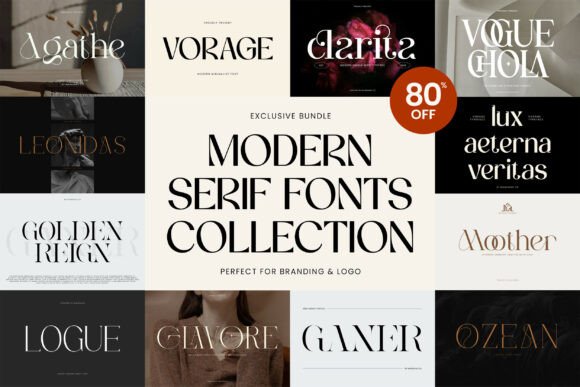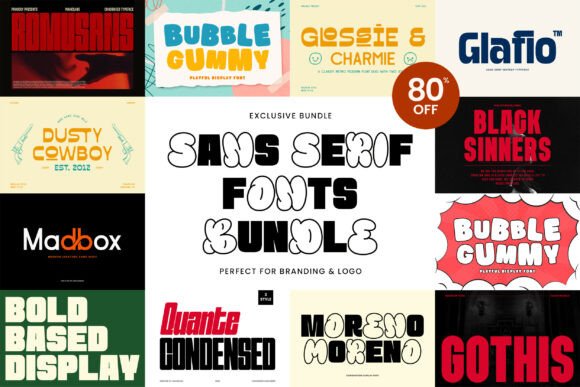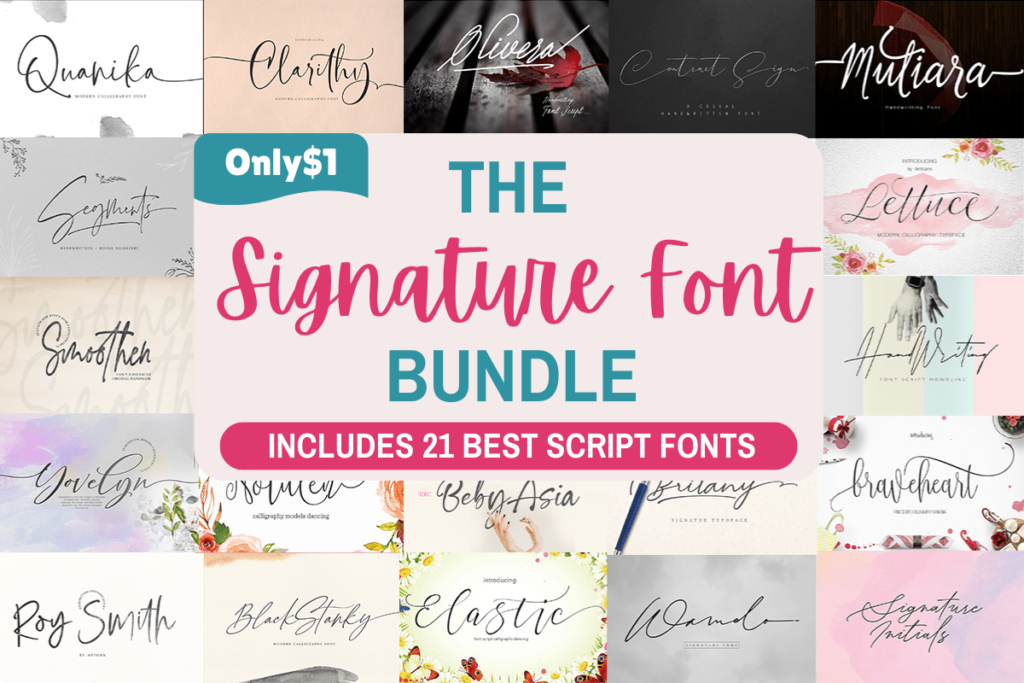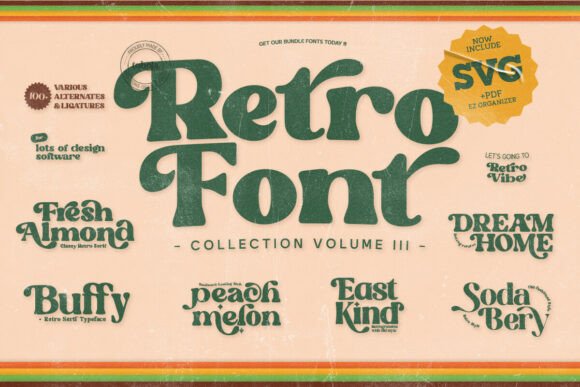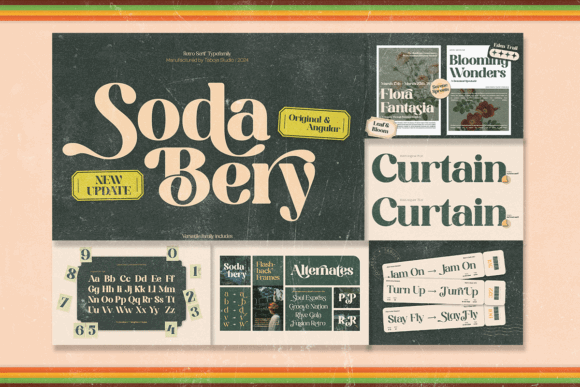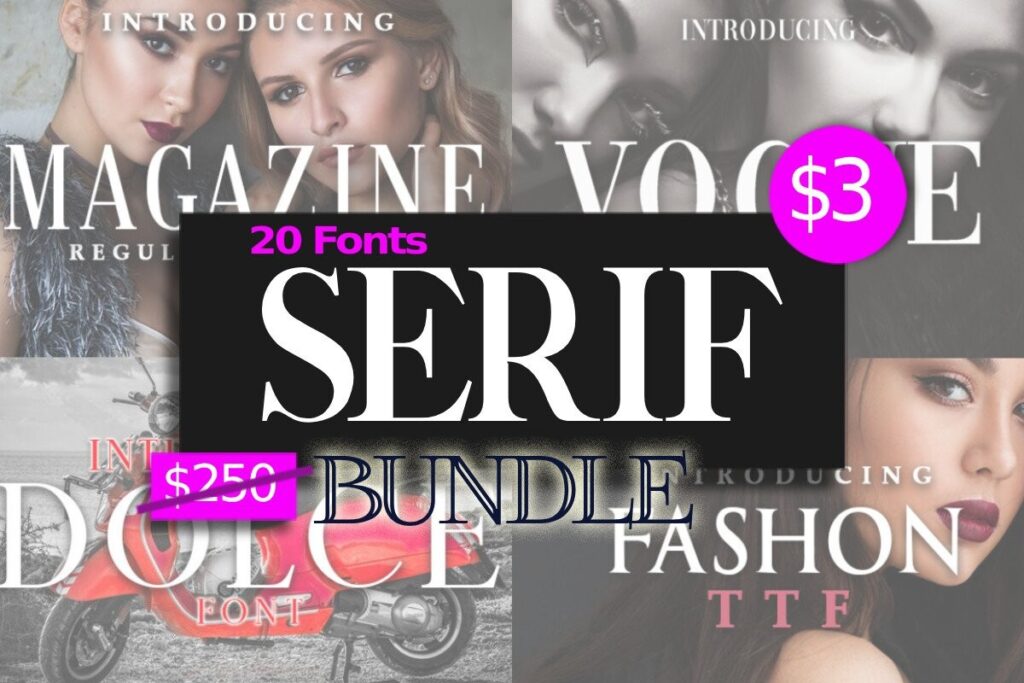
Best Display Font Bundles for Logos: What Makes Them Useful?
The best font bundles for logos give you more than a folder full of decorative lettering. They give you several ways to express the same brand idea—from bold and contemporary to elegant, nostalgic, playful, or handmade.
My main concern when judging a bundle is not how many fonts it contains. A collection with 100 unrelated typefaces may be less useful than a focused 20-font bundle with complementary styles. For logo projects, I look for memorable letterforms, readable word shapes, useful contrast, and enough variety to build supporting brand graphics around the main mark.
- Best overall: Modern Display Font Bundle
- Best for fashion and beauty: Modern Serif Bundle
- Best for heritage branding: Vintage Font Collection Bundle
- Best for clean modern logos: Sans Serif Bundle Collection
- Best for personal brands: Signature Font Bundle
1. Modern Display Font Bundle
My pick for: The most versatile all-around collection
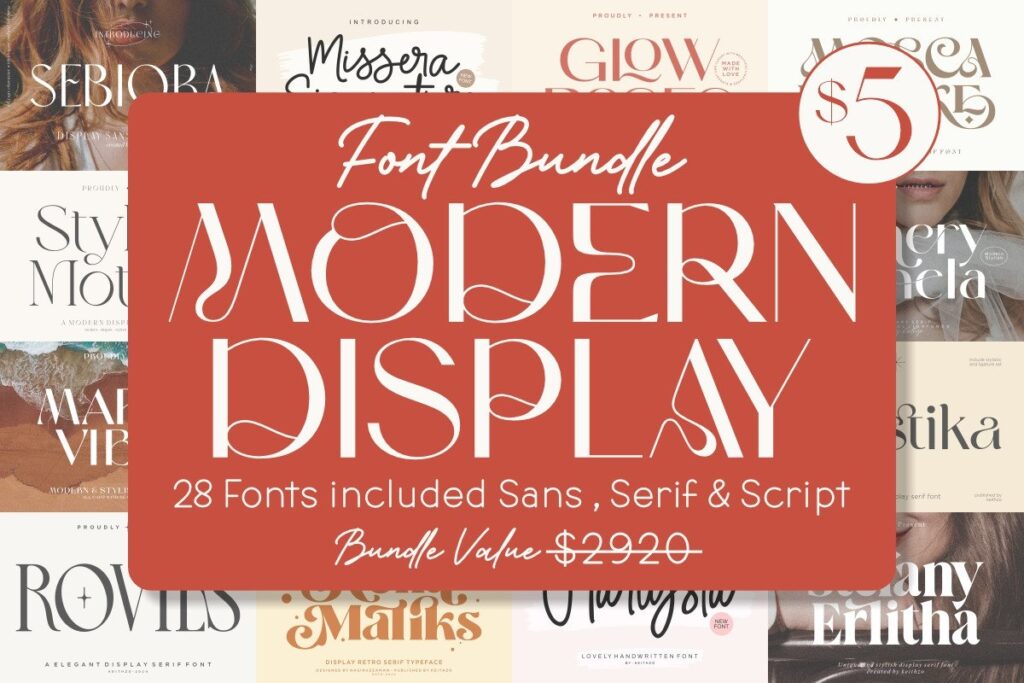
The Modern Display Font Bundle is the first collection I would inspect when I need several branding directions without buying unrelated products one by one. Its 28-font selection combines sans serif, serif, script, and handwritten styles, giving it broader range than a bundle built around a single trend.
That mix is helpful during early logo exploration. You can compare a clean wordmark against a more expressive script or editorial serif while keeping the project within one coordinated purchase. The collection has also accumulated a substantial number of positive reviews compared with many similar listings.
My only reservation is focus. A mixed bundle provides options, but not every included font will necessarily suit the same identity. I would shortlist two or three candidates and test them using the actual business name rather than evaluating them only through promotional specimens.
Best for: Agencies, freelancers, clothing labels
Key features: 28 fonts, mixed classifications, modern styling, broad branding range
2. Fancy Display Font Bundle
My pick for: Boutique and beauty branding
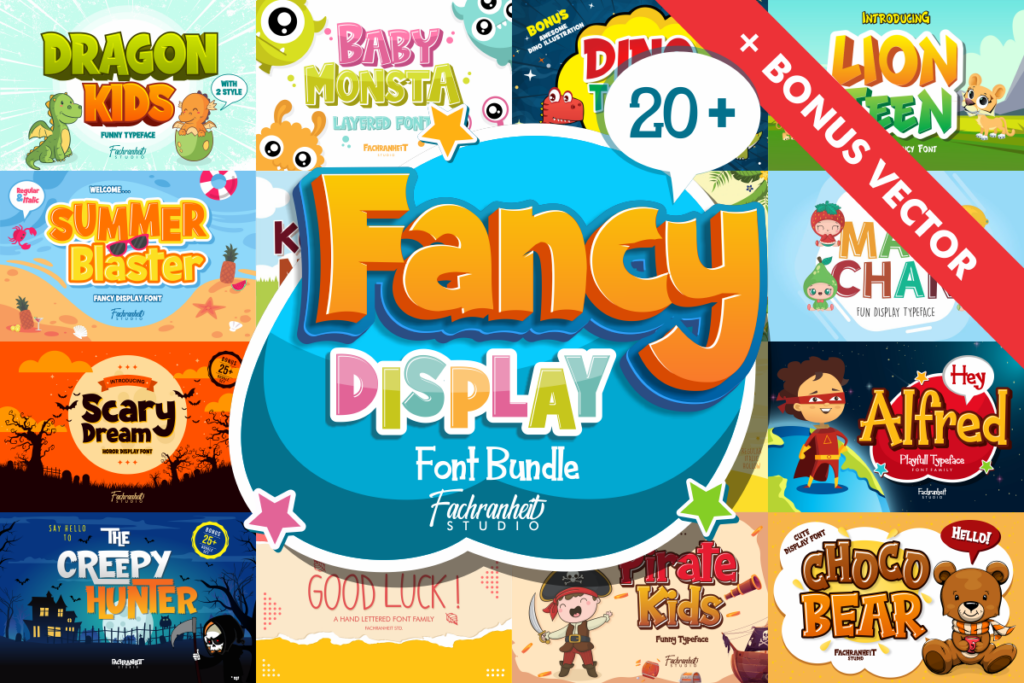
The Fancy Display Font Bundle leans toward decorative, polished typography. Its listed contents combine 20 fonts with two graphic resources, and the collection has received a strong volume of favorable customer feedback.
I like this bundle for brands that need a little ornament without looking childish. Depending on the individual font, it could fit a boutique, beauty studio, wedding vendor, photographer, stationery shop, or premium handmade product.
Decorative display fonts need restraint, though. Flourishes, unusual terminals, and sharp contrast can look attractive at headline size while becoming muddy in a tiny social avatar. I would use the display face for the business name and pair it with a quieter sans serif for taglines and supporting information.
Best for: Boutiques, salons, wedding businesses
Key features: 20 fonts, two graphics, decorative styles, established review history
3. Vintage Font Collection Bundle
My pick for: Heritage and craft-led identities
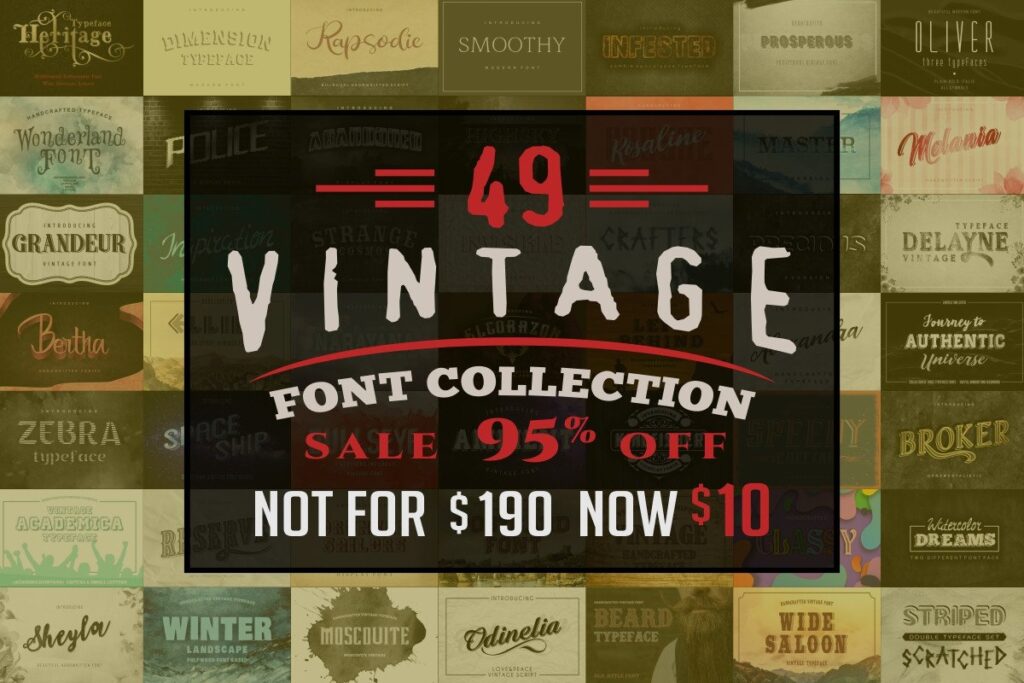
This 49-font vintage collection is one of the strongest thematic options in the roundup. Instead of mixing every possible aesthetic, it stays centered on nostalgic typography. The product also has a notable number of five-star reviews, making it one of the more established bundles here.
I would reach for it when designing a brewery badge, barbershop logo, coffee label, mechanic identity, outdoor brand, restaurant emblem, or handmade-goods mark. Vintage display lettering can make a new company feel established, especially when combined with restrained colors and simple illustration.
The danger is imitation. A distressed slab serif, arched wordmark, and decorative border can quickly become indistinguishable from hundreds of other retro logos. Customize spacing, simplify unnecessary ornaments, and build a composition that belongs to the brand rather than relying on the font to do everything.
Best for: Breweries, barbershops, cafés
Key features: 49 fonts, vintage focus, high review score, varied nostalgic styles
4. Colorful Display Font Bundle
My pick for: Playful product and family-focused brands
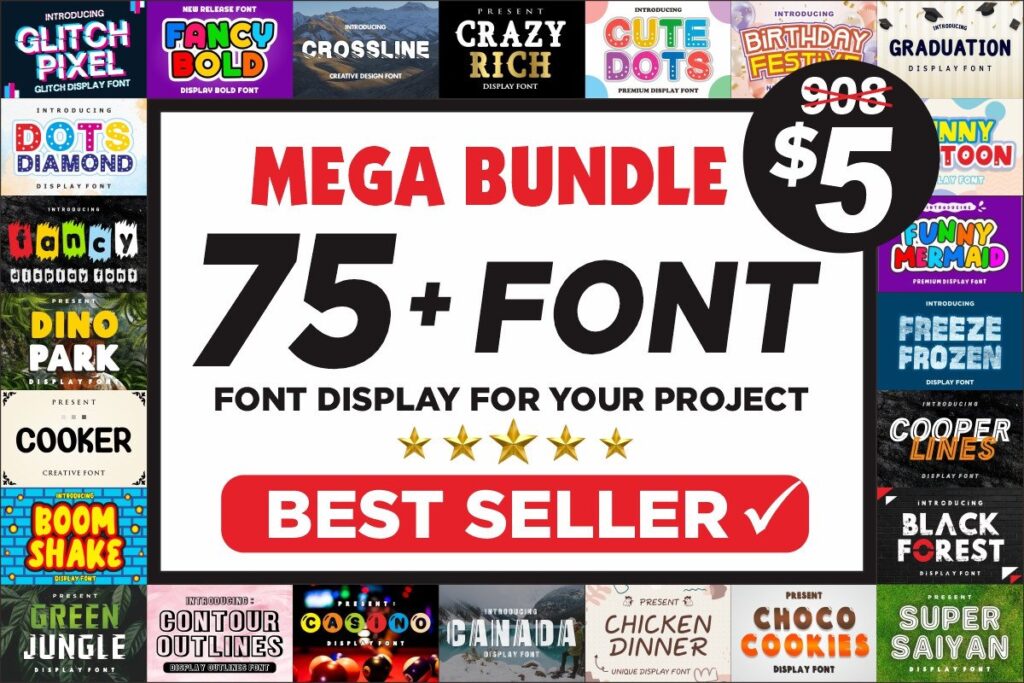
With 76 display fonts, the Colorful Display Font Bundle offers one of the largest selections on this list. Its emphasis is expressive, craft-friendly typography suitable for attention-grabbing graphics and logos.
I see the most value for children’s products, candy packaging, party businesses, classroom resources, toy brands, sticker shops, and upbeat social content. Rounded letters, irregular baselines, chunky shapes, and energetic details can make a brand feel more approachable.
Are display fonts good for logo design?
Yes, provided the lettering remains readable at the sizes the logo requires. Display fonts can create a distinctive wordmark, but highly decorative styles may need a simplified secondary logo for small applications.
How many fonts should a brand use?
Most small brand systems can function with one primary display typeface and one readable supporting family. A third accent font may be useful, but too many competing styles can weaken consistency and hierarchy.